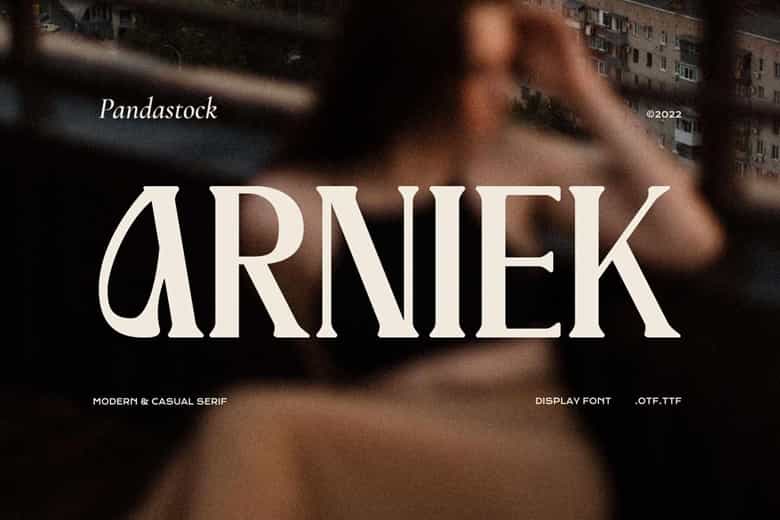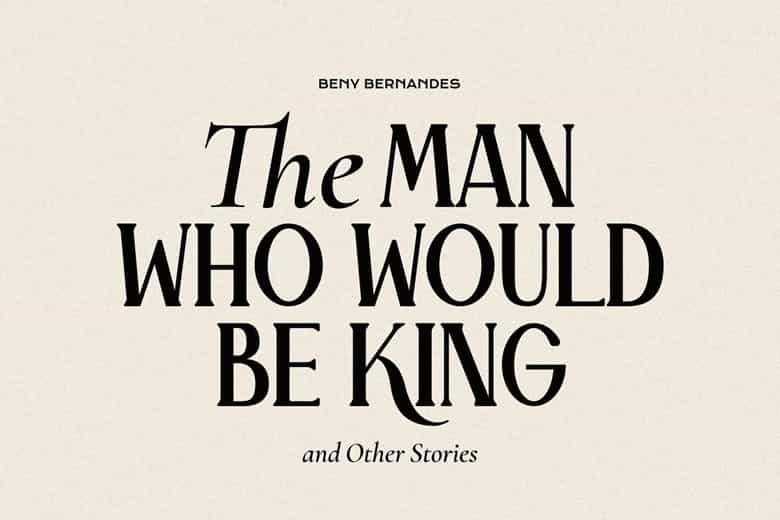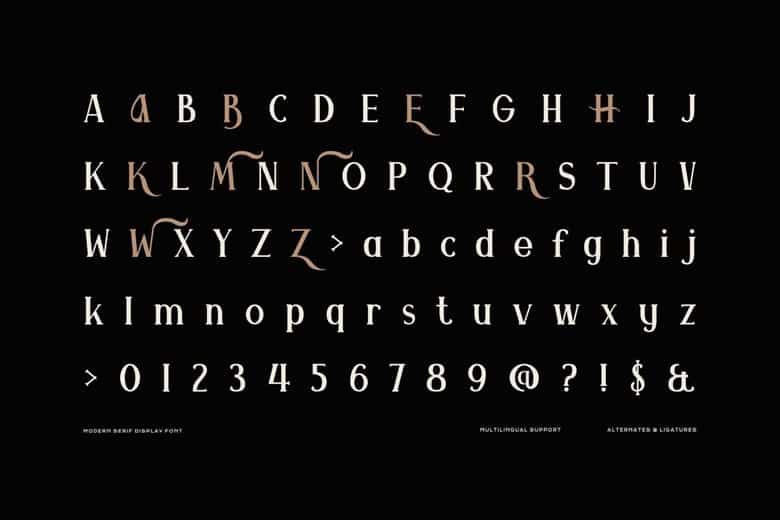
Arniek is beautiful font is clear of curves and has aesthetic outlook that can make all your writings charming and elegant looking, making your work look all the more alluring. A modern font that can be applied in both large and small forms, headed font for titles, funky logo text, invitation, branding, books’ covers, magazines, cards, package design, food packaging, product mockup, cup, posters, labels, magazines, decorative, and any advertising purposes.